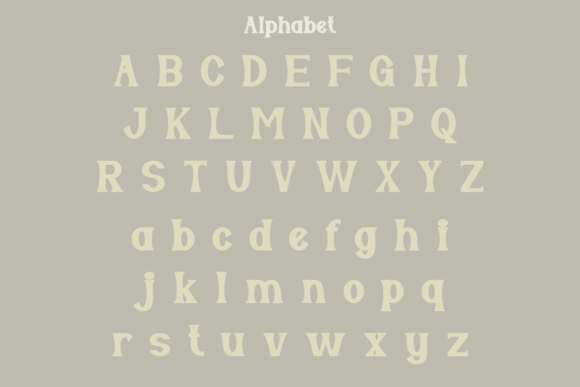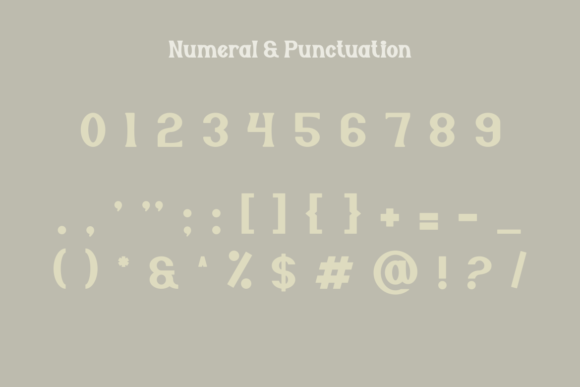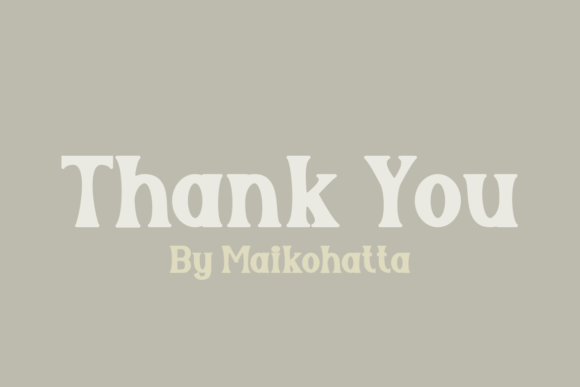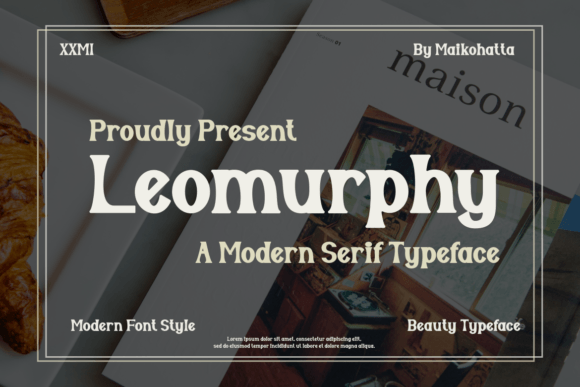
Introduction to Leomurphy Font
Introducing our new product **Leomurphy Font** – Modern Font is a bold and authentic display font.
The font is suitable for any branding project like logo, template design, esport, and many more outstanding in a wide range of contexts.
Leomurphy Font offers exceptional quality and versatility, making it a valuable addition to your design toolkit. Whether you’re creating for personal projects or commercial use, Leomurphy Font delivers professional results.